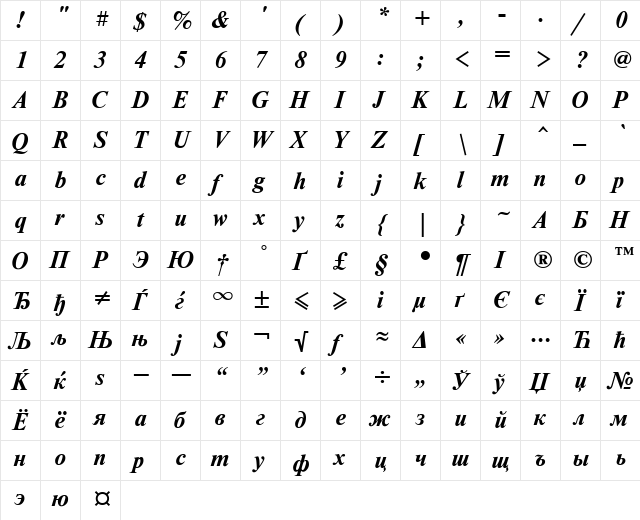
NewtonMACCTT BoldItalic
Design Context for NewtonMACCTT Typeface
NewtonMACCTT is a composed and adaptable typeface that performs quietly and consistently across a wide range of design contexts. The slanted form adds forward momentum and visual energy. The heavy weight commands attention and anchors typographic hierarchies.